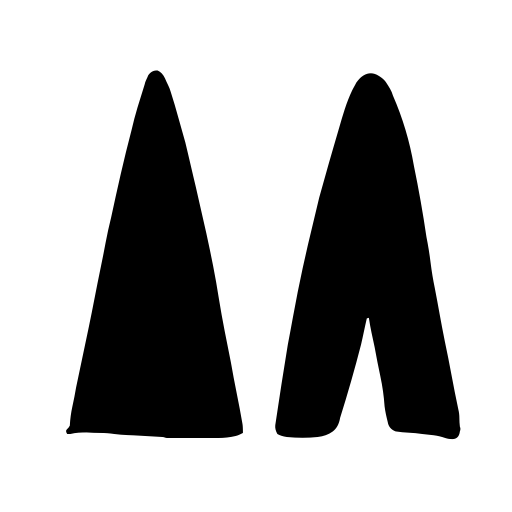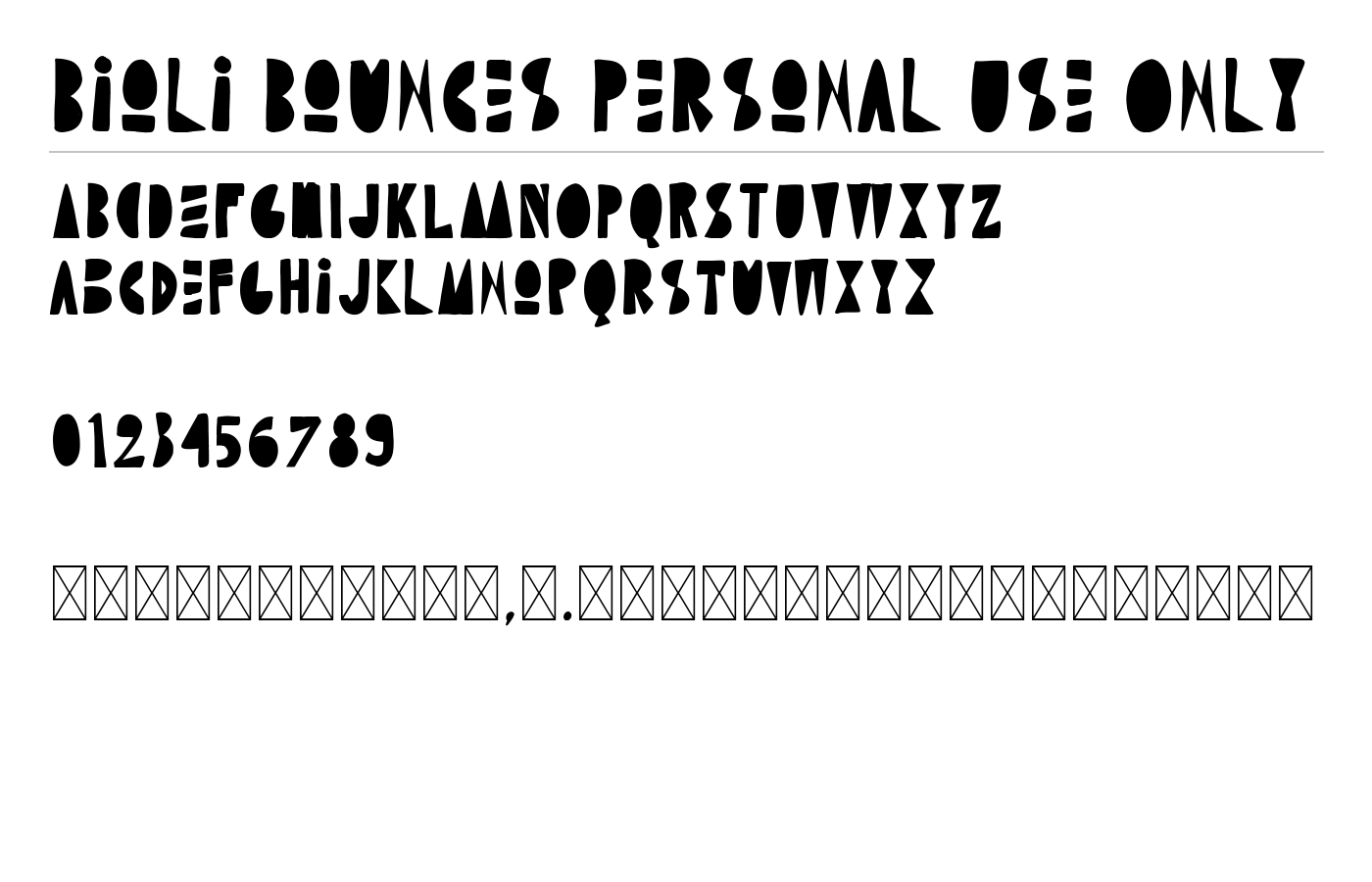
Bioli Bounces is a playful and bold display font featuring irregular, chunky letterforms that evoke a sense of fun and creativity. Its unique shapes and whimsical style make it perfect for eye-catching headlines, children’s designs, and informal branding that wants to convey energy and personality. This font works best in projects where a lively and unconventional look is desired, rather than in long text blocks.
Bioli Bounces Personal Use Only Font
About Bioli Bounces Personal Use Only Font